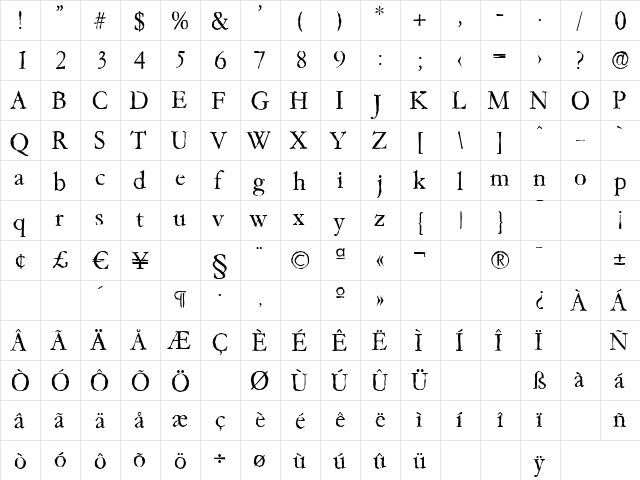
GarfeldAntique-Light Regular Font Preview
GarfeldAntique-Light Regular
GarfeldAntique-Light Regular Font Details
Design Context for GarfeldAntique-Light Typeface
GarfeldAntique-Light has the warm character of retro typography — evoking diners, record sleeves, and the golden age of print advertising. Its slender proportions lend an understated elegance to any composition.
Font Pairing: Combine GarfeldAntique-Light with a simple slab or neutral sans — period-accurate companions reinforce the vintage feel without competing for attention.
Pro Tip: Use GarfeldAntique-Light for headlines and pull quotes rather than body copy — its personality is best appreciated in short, focused bursts.